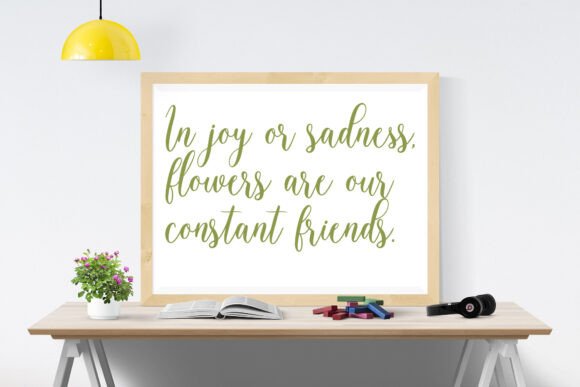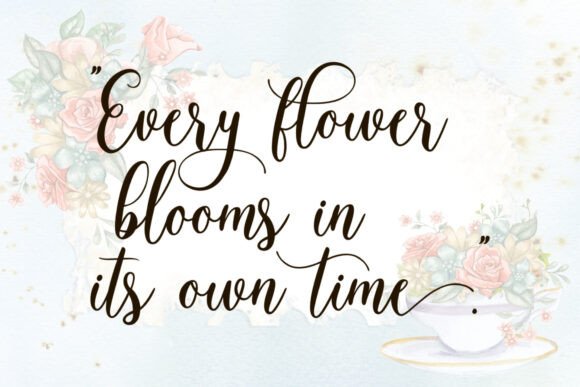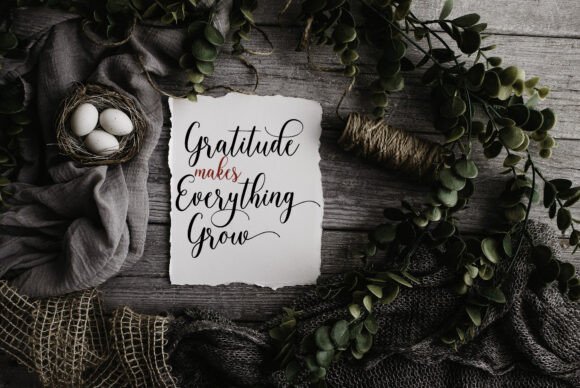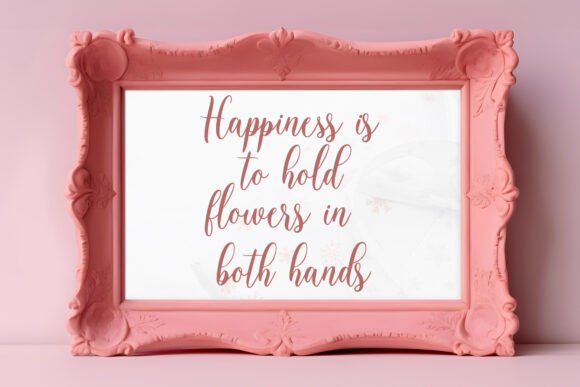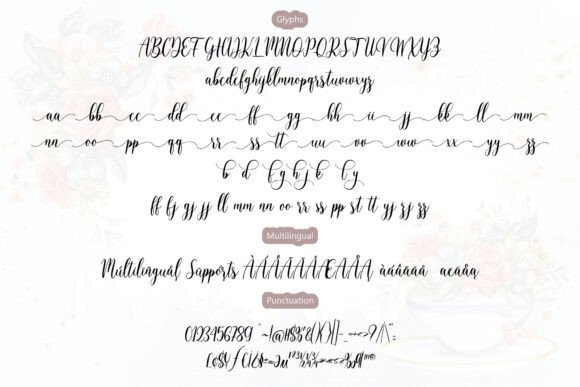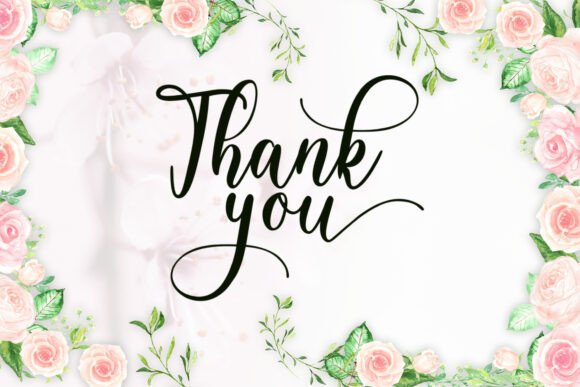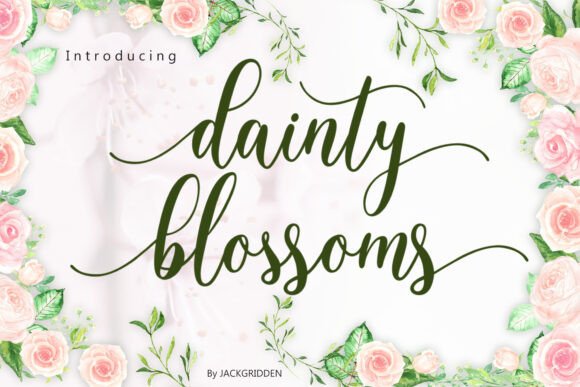
Dainty Blossoms Font: Elevate Your Designs with Elegance and Charm
In the world of typography, few fonts manage to strike a balance between modern sophistication and classic charm. Dainty Blossoms, a chic hand calligraphy font, is one such gem that effortlessly merges these styles to create a truly unique and captivating aesthetic. With its smooth, flowing lines and whimsical curves, Dainty Blossoms is the perfect addition to a variety of design projects, from wedding invitations and branding to packaging and more.
The Essence of Dainty Blossoms
Dainty Blossoms is more than just a font; it’s an expression of elegance and refinement. Its hand calligraphy style gives it a personal and intimate feel, making it ideal for designs that require a touch of warmth and sophistication. The font’s smooth lines and gentle curves evoke a sense of fluidity and movement, adding a dynamic element to any design.
One of the standout features of Dainty Blossoms is its versatility. This font can be used in a multitude of design projects, including:
- Wedding Invitations: Add a touch of romance and sophistication to your wedding stationery with Dainty Blossoms. Its elegant style makes it perfect for wedding invitations, save-the-date cards, and thank-you notes.
- Branding: Elevate your brand with a refined and approachable aesthetic. Dainty Blossoms is ideal for logos, business cards, and packaging designs that require a touch of elegance.
- Signatures: Use Dainty Blossoms to add a personal touch to signatures, making them stand out with a unique and stylish flair.
- Decorative Elements: Incorporate Dainty Blossoms into your designs as a decorative element, such as in borders, frames, or as a standalone design element.
Why Choose Dainty Blossoms?
For designers and crafters looking for a font that combines modern style with classic charm, Dainty Blossoms is an excellent choice. Here are a few reasons why:
- Elegant and Refined: Dainty Blossoms brings a level of sophistication to any design, making it perfect for projects that require a touch of elegance.
- Approachable and Friendly: Despite its refined nature, Dainty Blossoms remains approachable and friendly, making it suitable for a wide range of audiences.
- Floral Charm: The font’s whimsical curves and flowing lines give it a floral charm that captivates audiences and adds a unique touch to designs.
Tips for Using Dainty Blossoms
To get the most out of Dainty Blossoms, consider the following tips:
- Pair with Contrasting Fonts: Combine Dainty Blossoms with contrasting fonts to create visual interest and hierarchy in your designs.
- Experiment with Colors: Dainty Blossoms looks stunning in a variety of colors. Experiment with different hues to find the perfect match for your design.
- Use for Headlines and Titles: The font’s elegant style makes it perfect for headlines and titles. Use it to draw attention and add a touch of sophistication to your designs.
Dainty Blossoms is a beautiful and versatile font that can elevate any design project. Its unique blend of modern and classic styles, combined with its smooth lines and whimsical curves, make it perfect for a wide range of applications. Whether you’re a designer or crafter looking for a refined yet approachable aesthetic, Dainty Blossoms is an excellent choice. With its floral charm and captivating style, this font is sure to bring a touch of elegance and sophistication to any creation.